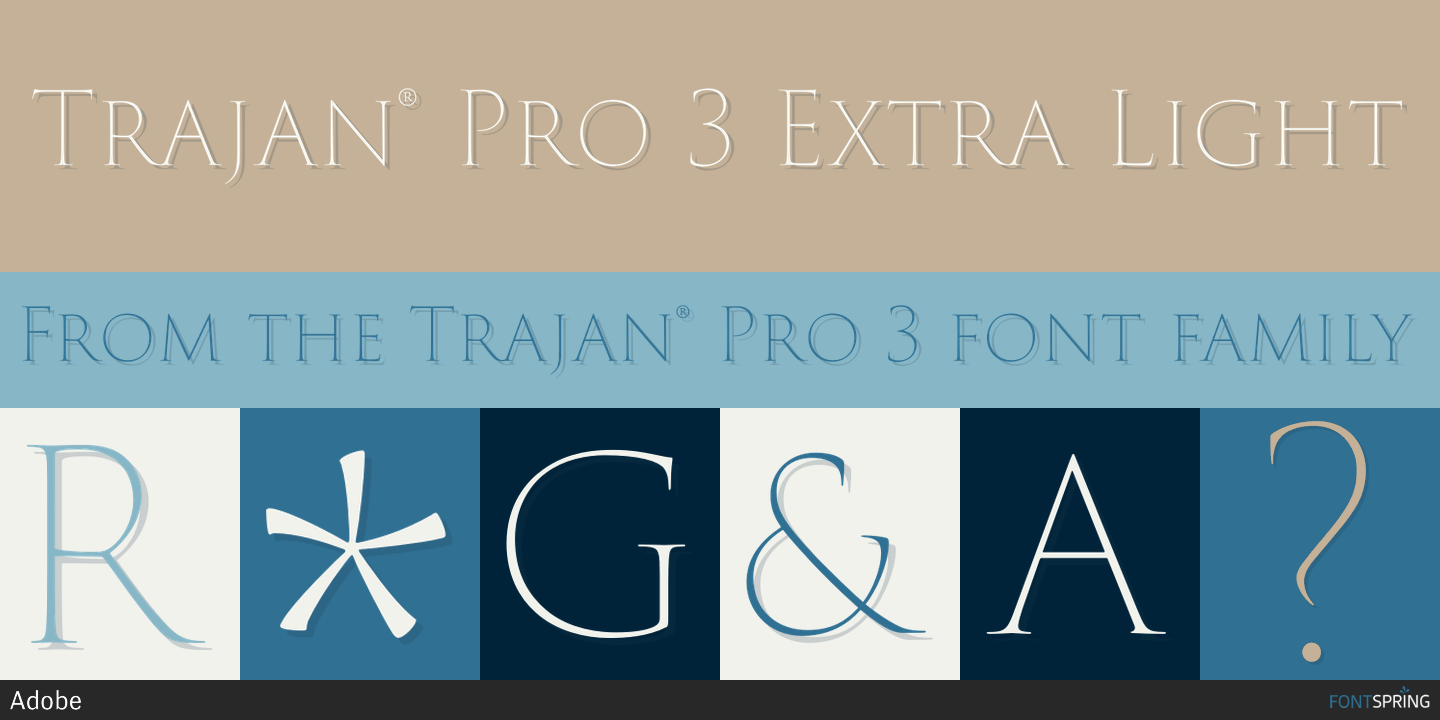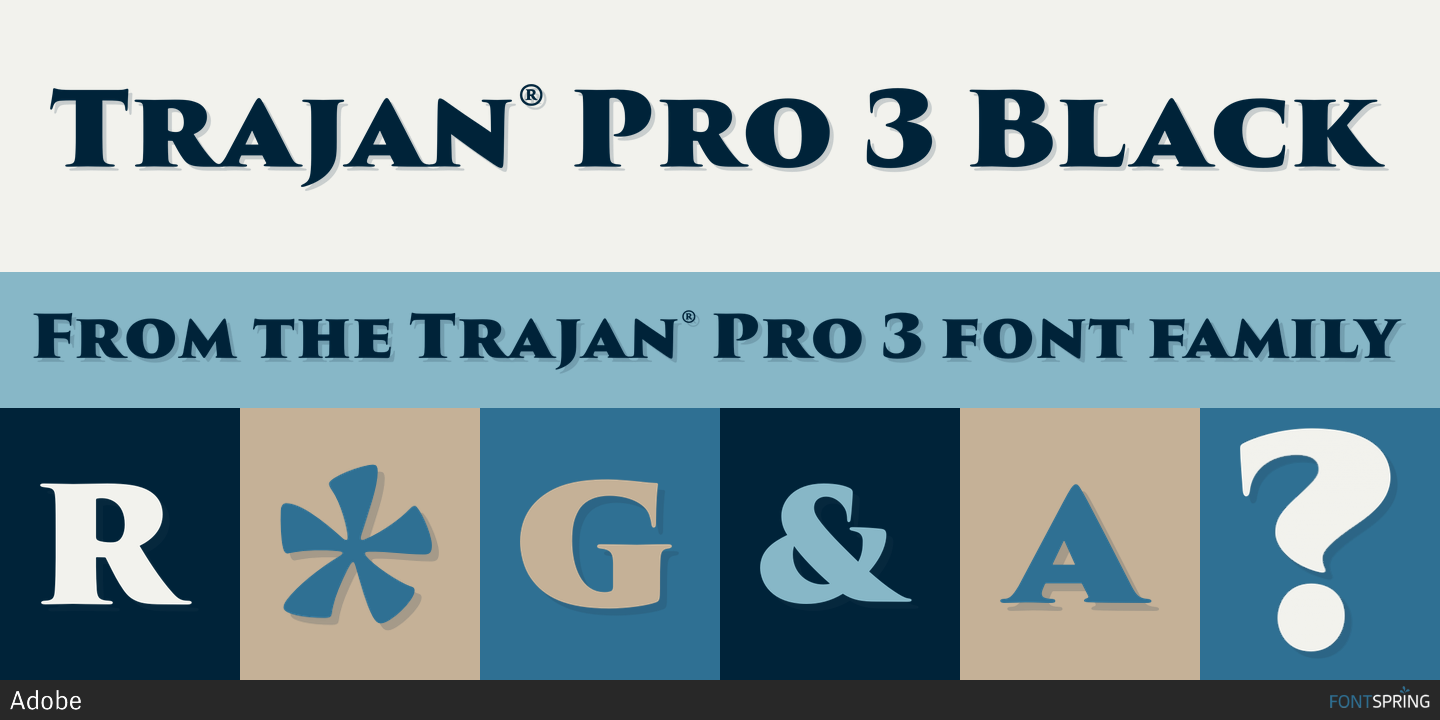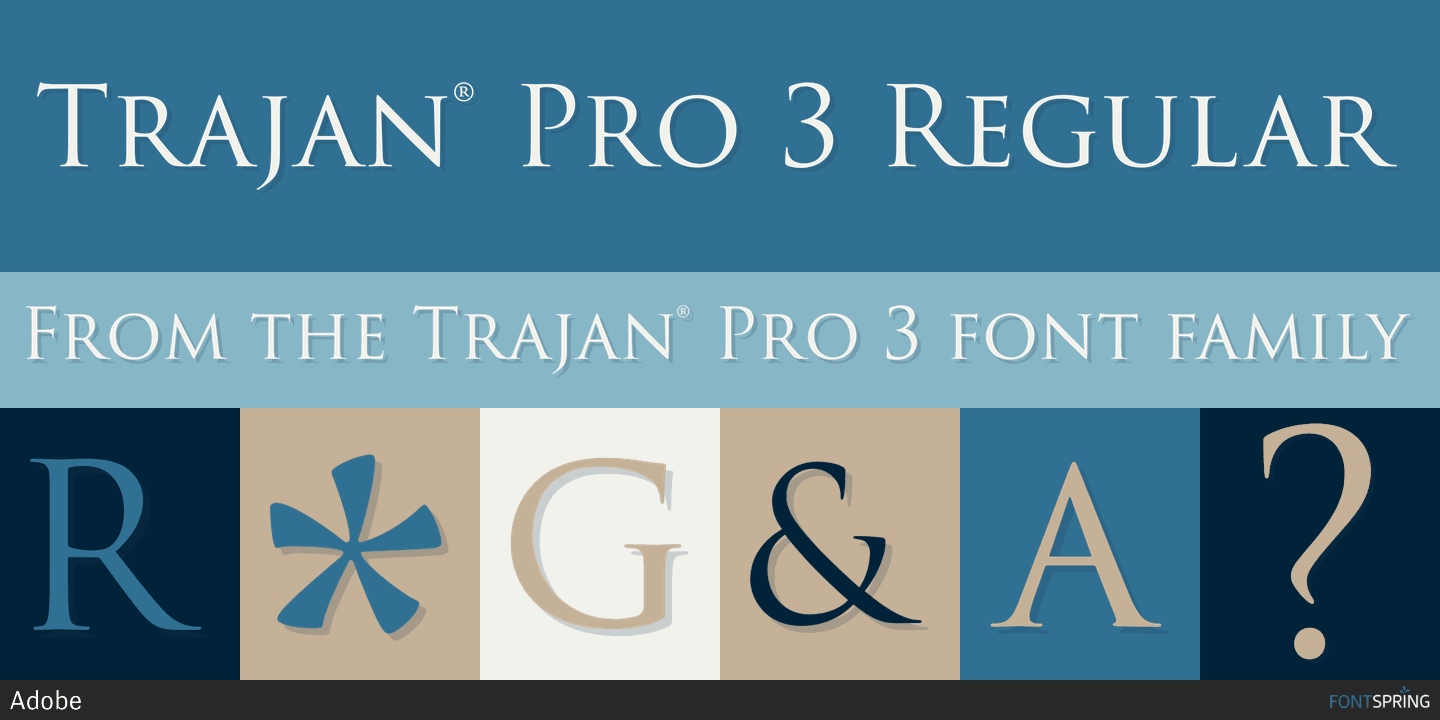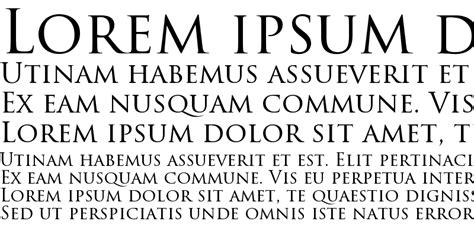
Trajan Pro 3 Font
Trajan Pro 3 Font - Web trajan pro 3 font is a modern serif typeface that was designed and published by carol twombly. A serif typeface with 6 styles, available from. Web explore trajan designed by carol twombly, robert slimbach at adobe fonts.
Web explore trajan designed by carol twombly, robert slimbach at adobe fonts. A serif typeface with 6 styles, available from. Web trajan pro 3 font is a modern serif typeface that was designed and published by carol twombly.
A serif typeface with 6 styles, available from. Web explore trajan designed by carol twombly, robert slimbach at adobe fonts. Web trajan pro 3 font is a modern serif typeface that was designed and published by carol twombly.
Web Trajan Pro 3 Font Is A Modern Serif Typeface That Was Designed And Published By Carol Twombly.
Web explore trajan designed by carol twombly, robert slimbach at adobe fonts. A serif typeface with 6 styles, available from.